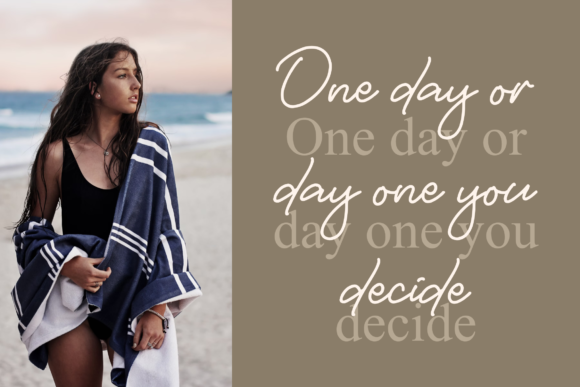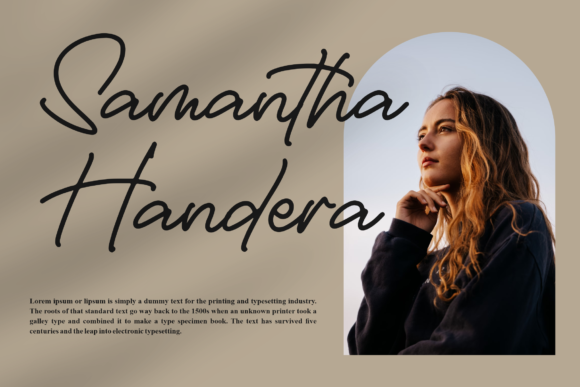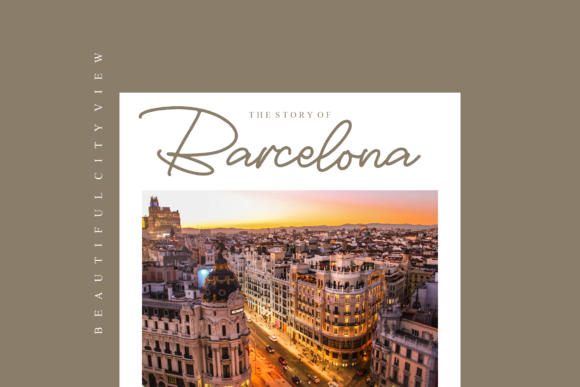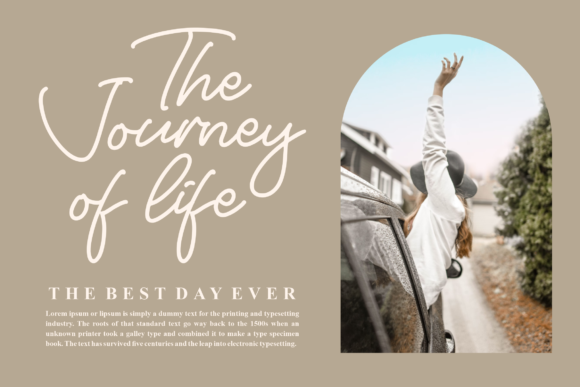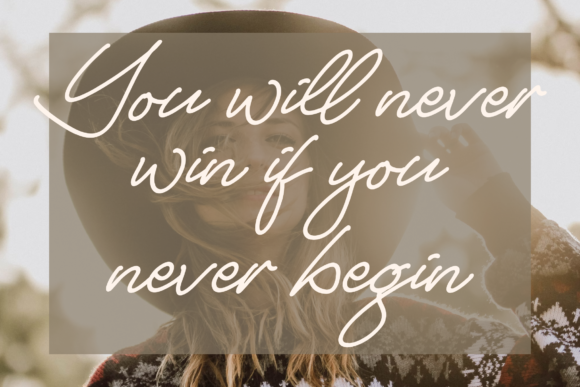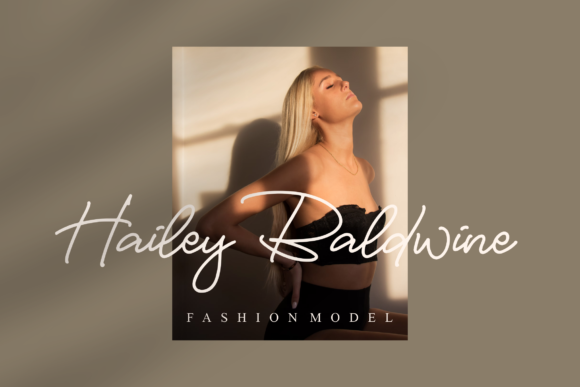
Introduction to Holiday Reghasta Font Font
Fonts play a crucial role in design, and the Holiday Reghasta Font font is a typeface that brings both character and versatility to any project. Whether you’re working on a branding project, a website, or a print design, the Holiday Reghasta Font font offers a unique style that can elevate your work.
Holiday Reghasta is a free-flowing script font created for packaging products, invitation cards, flyers, mockups, event posters, and anything else that requires high-quality vibes.
It has a beautiful and balanced character, that fits well with the large design pool .
Key Features of Holiday Reghasta Font Font
Why Choose Holiday Reghasta Font Font?
The Holiday Reghasta Font font is more than just a typeface – it’s a design tool that helps you communicate your message with style and clarity. Its unique character set and versatile design make it suitable for a wide range of applications, from elegant invitations to bold headlines.
With its carefully crafted letterforms and balanced proportions, the Holiday Reghasta Font font ensures readability and visual appeal across all mediums.
What makes Holiday Reghasta Font font special?
The Holiday Reghasta Font font stands out with its unique design, exceptional readability, and versatility across various design applications.